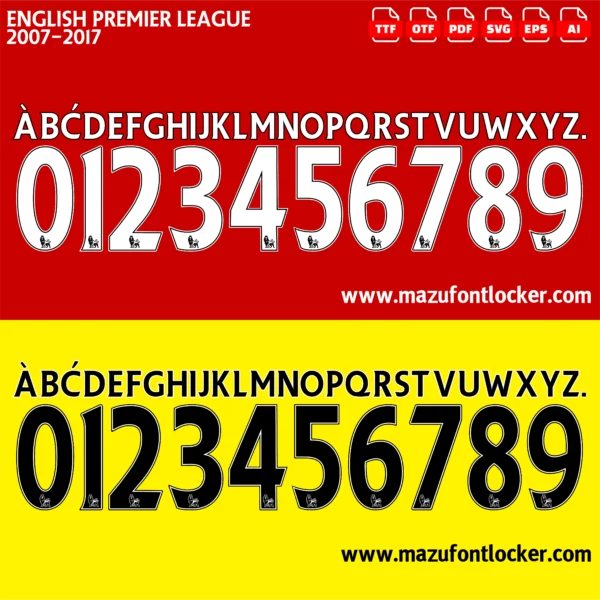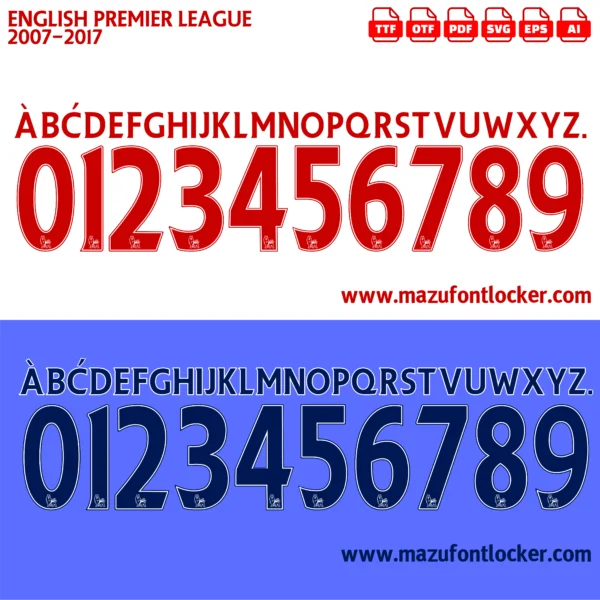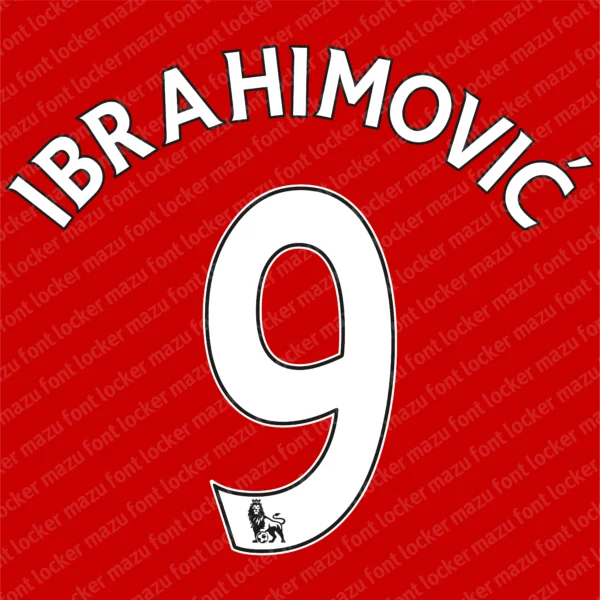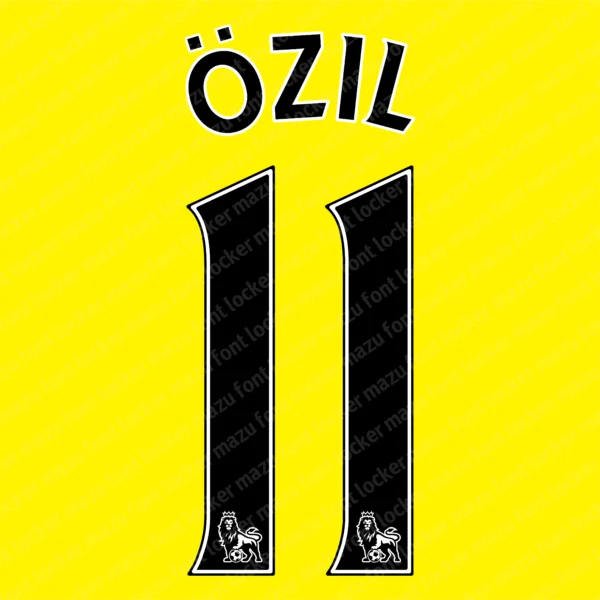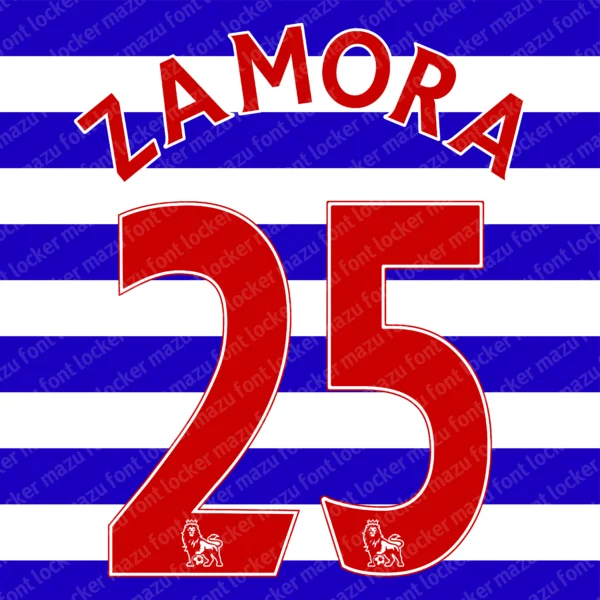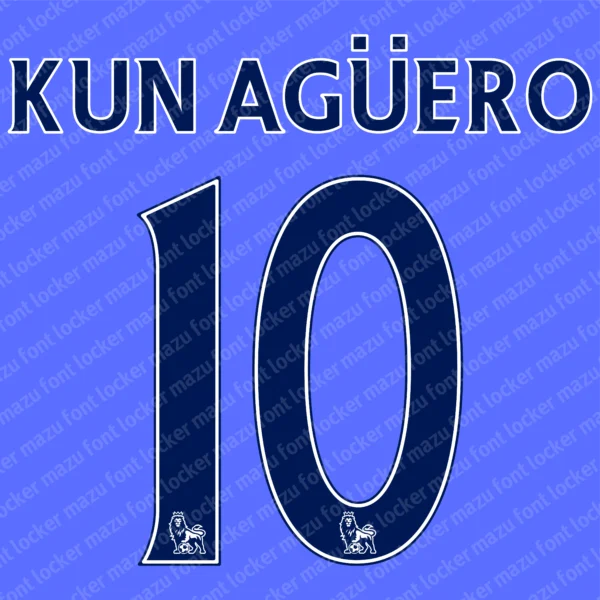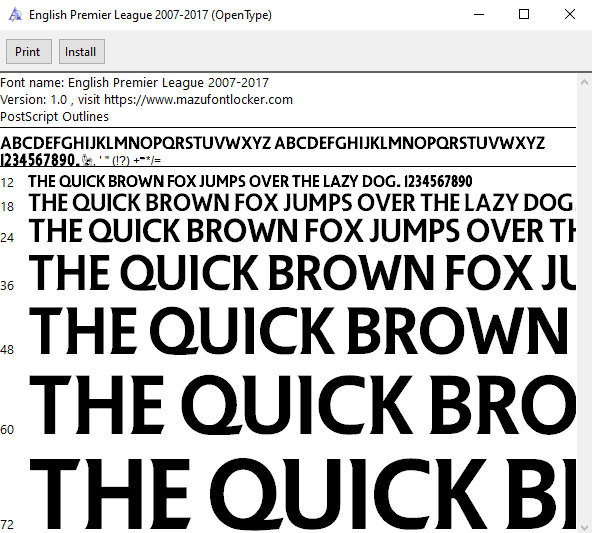
Premier League 2007-2017 Font Vector – Iconic Bold Matchday Typeface
The Premier League 2007-2017 Font Vector is a premium typeface that accurately recreates the distinctive match lettering associated with the English Premier League during the golden era of 2007-2017. This high-quality vector font kit captures the bold, clean, and instantly recognizable typography that perfectly complements the league’s iconic branding and the visual identity of that unforgettable decade.
Designed for professional designers, football enthusiasts, jersey collectors, and passionate Premier League supporters, the Premier League 2007-2017 Font Vector delivers exceptional authenticity for creating realistic jersey mockups, football merchandise, social media graphics, match posters, squad designs, and custom fan artwork. Every character has been carefully recreated to reflect the powerful and precise visual style of English football’s most competitive period.
This font stands out thanks to its precise vector construction and authentic league-inspired styling. Every letter and numeral has been meticulously recreated to match the distinctive football lettering aesthetic associated with the Premier League during the 2007-2017 seasons and its domestic and European campaigns.
Whether you’re producing professional football kit templates, custom jersey concepts, or eye-catching football content, the Premier League 2007-2017 Font Vector delivers a genuine match-ready appearance inspired by the identity of English top-flight football.
The lettering featured in the Premier League 2007-2017 Font Vector combines clean geometric lines with bold modern proportions. The result is a premium and highly readable typeface that reflects the Premier League’s proud football heritage, iconic branding, competitive spirit, and the passionate support of fans across England and around the world.
- Complete uppercase A–Z alphabet and numbers 0–9 in authentic Premier League 2007-2017 inspired style
- Special Premier League badge glyph – Press the “:” (Colon) key to insert the league badge